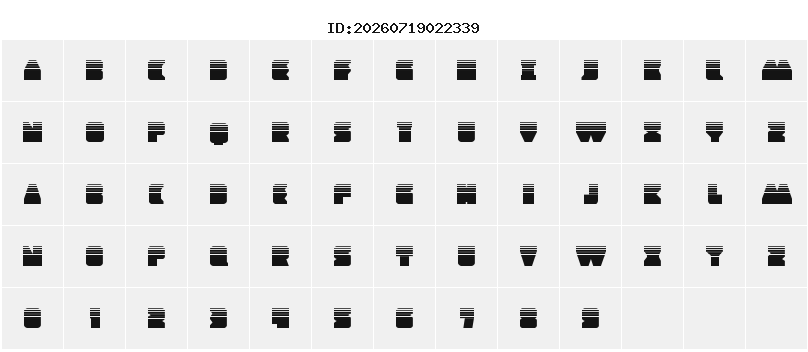
• Font Name: Contour of Duty Halftone
About Contour of Duty Halftone.ttf
Contour of Duty Halftone.ttf is a modern, elegant sans-serif font designed for ultimate readability and visual harmony. Perfect for branding, headlines, web design, and print materials.